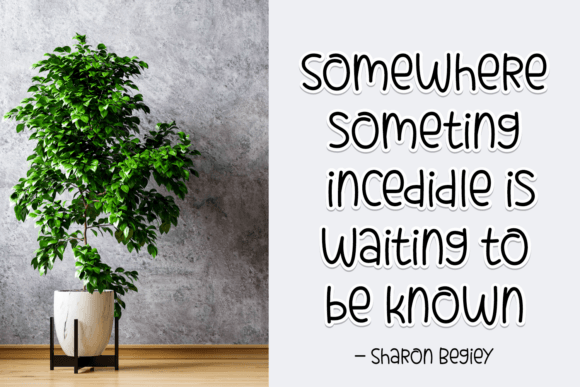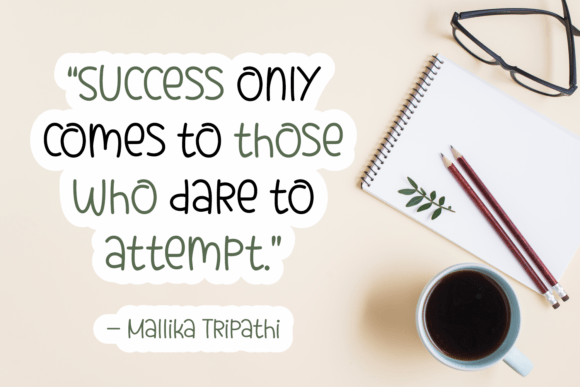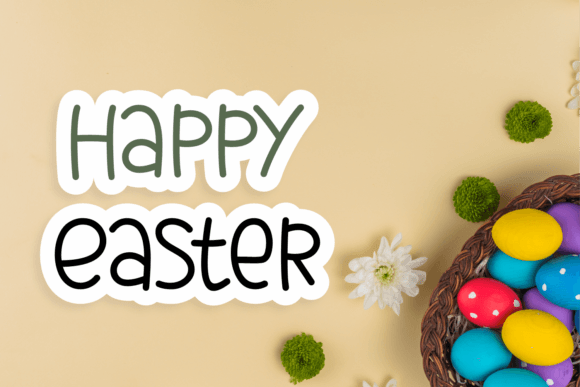
Introduction to Simpmon Font
Simpmon is a clean handwritten typeface that’s perfect for adding a personal touch to your designs.
Its smooth and flowing lines create a sense of effortless elegance, making it ideal for invitations, notes, and anything that requires a touch of charm Get ready to add some personality to your work with this font.